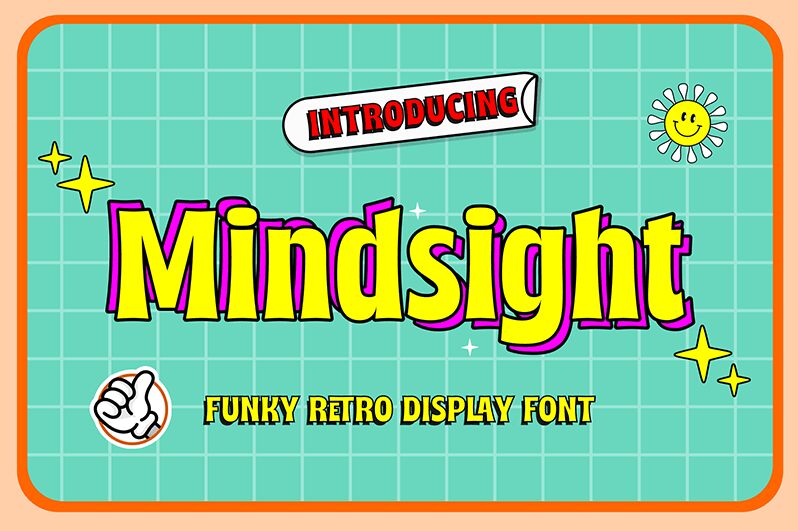
Mindsight Regular
Mindsight font by Get Studio is a free retro display font with a condensed width. The set features rounded serifs, smooth overall flows, and curves that display an appealing vintage flair with a modern twist. The overall style carries an approachable feel paired with elegance for gentle dainty texts and statements.
Enjoy this beautiful tool for logo designs, apparel, stationery items design, social media posts, headlines and titles in magazines or newspapers, labels signages for cafes or small local businesses. It can also be used in web designs especially within fashion or beauty-related blogs or websites.